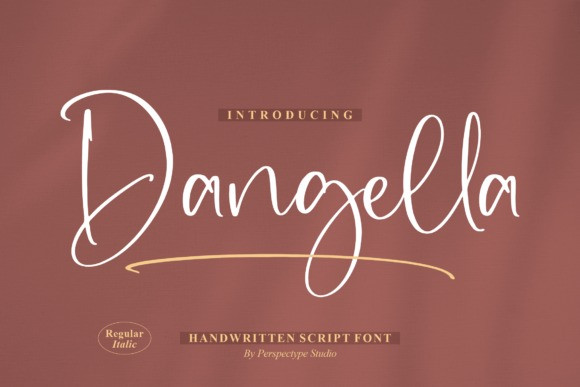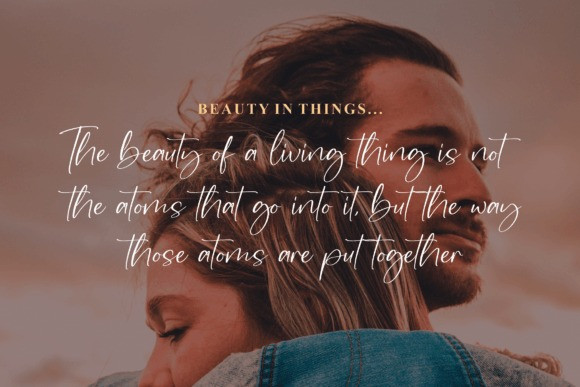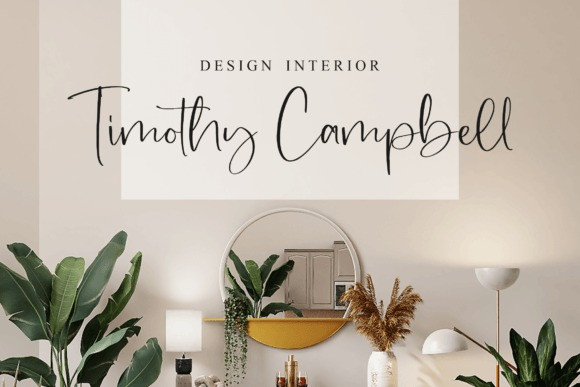
Dangella Font
Dangella – Handwritten Script Font , from Perspectype Studio, suitable for any projects such as: logos, branding projects, homeware designs, product packaging, mugs, quotes, posters, shopping bags, t-shirts, book covers, name card, invitation cards, greeting cards, label, photography, watermark, special events, and all your other lovely projects that need a beautiful script taste.